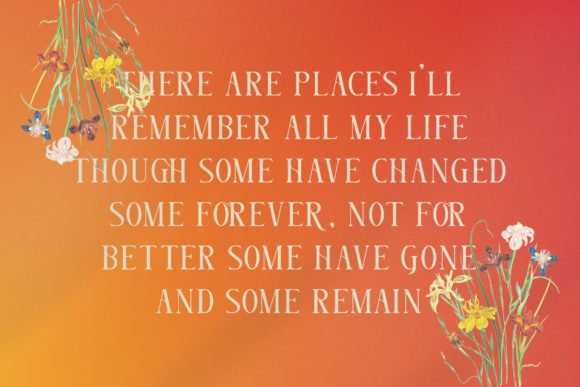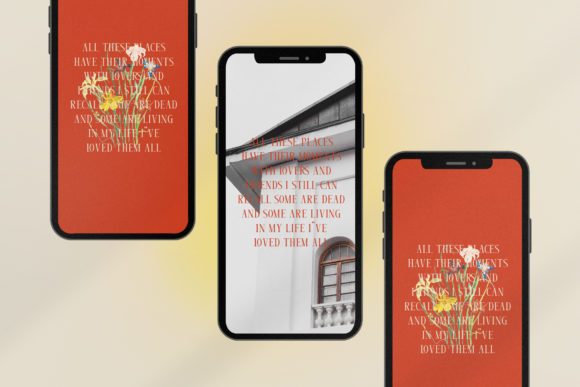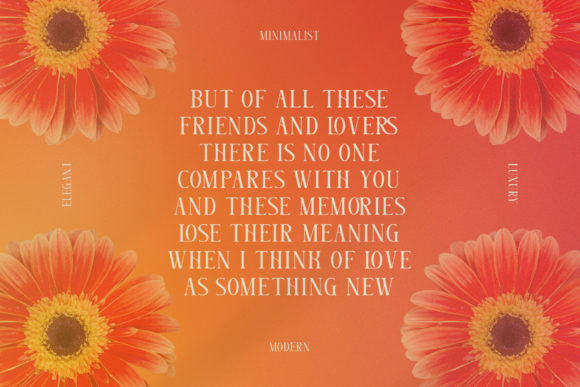
Introduction to Glorando Font
Proudly present Glorando Typeface, created by Story type, A serif modern and classic typeface that has its own unique style & modern look.
This typeface is perfect for an elegant & luxury logo, book or movie title design, fashion brand, magazine, clothes, lettering, quotes, and so much more This font is PUA encoded which means you can access all of the glyphs and swashes with ease.